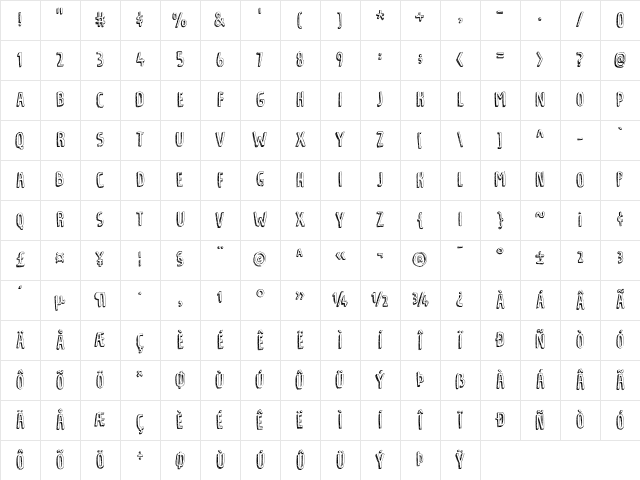
Tradizional DEMO Regular
Foundry: Jakob Fischer / pizzadude.dk
Designer: Jakob Fischer / pizzadude.dk
Design Context for Tradizional DEMO
Tradizional DEMO is a composed and adaptable typeface that performs quietly and consistently across a wide range of design contexts.